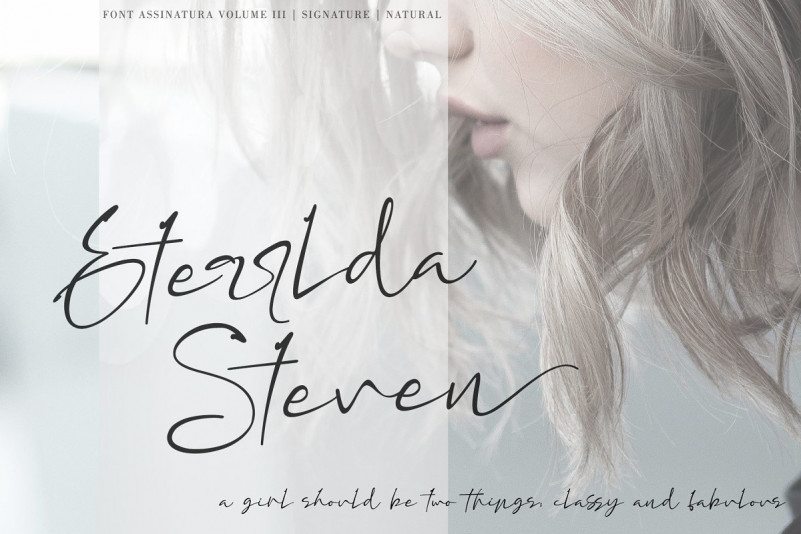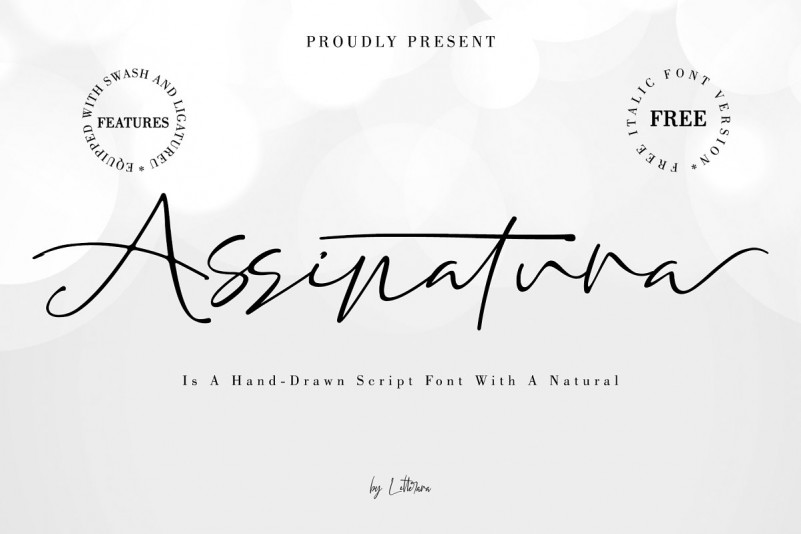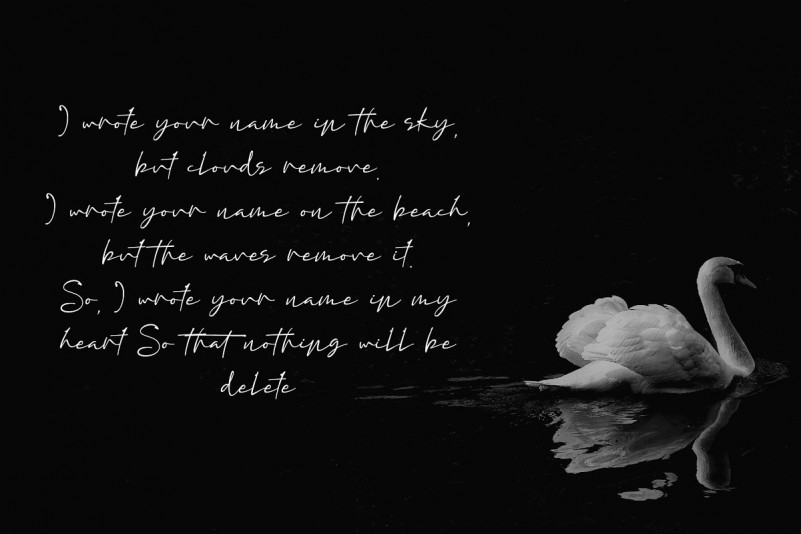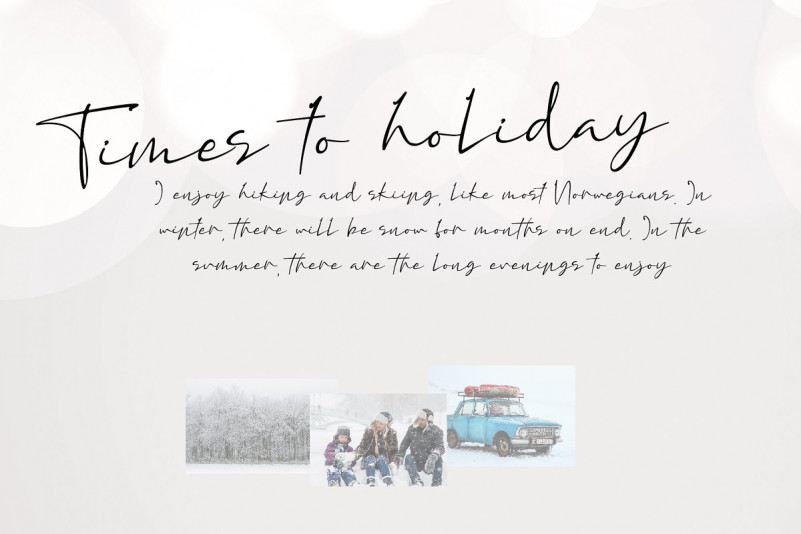
Assinatura Script Font
Hi Welcome! Thank you for looking Assinatura Font. This is a new elegant signature style font which gives any design project that authentic handwritten feel! It’s designed by Leterara. Assinatura comes from Portuguese which means signature. Assinatura Is A Hand-Drawn Script Font With A Natural. This signature script moves with ease across any design, and adds a large dose of confidence and style. It’s perfect for logos, branding, headlines, sub-headers and taglines.